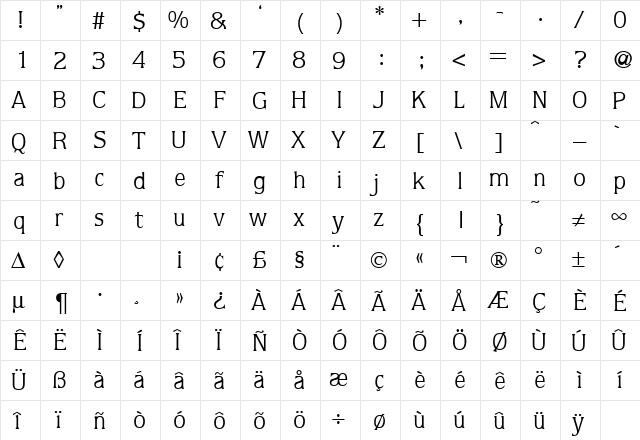
Quota Regular
Design Context for Quota Typeface
Quota is a composed and adaptable typeface that performs quietly and consistently across a wide range of design contexts.